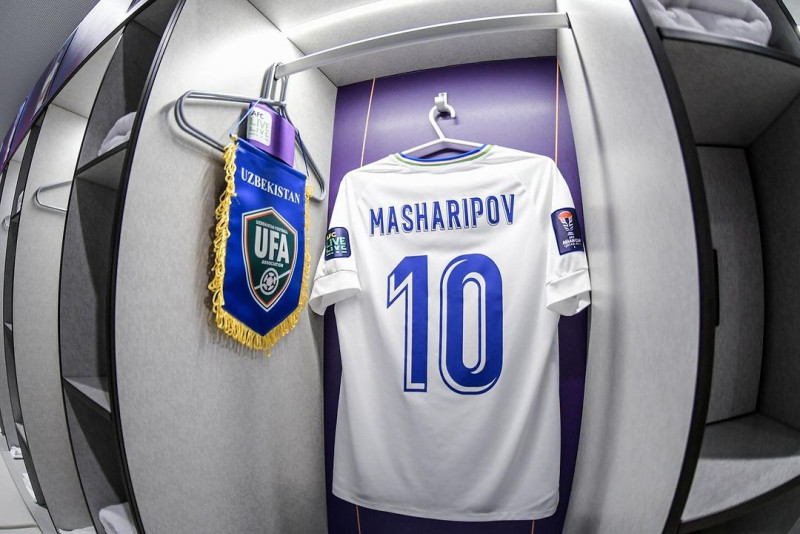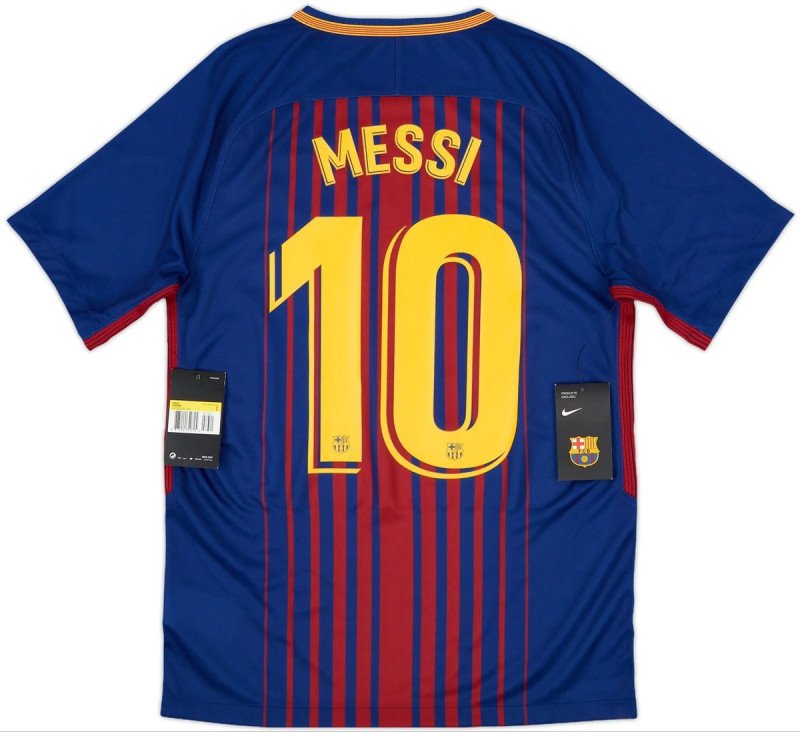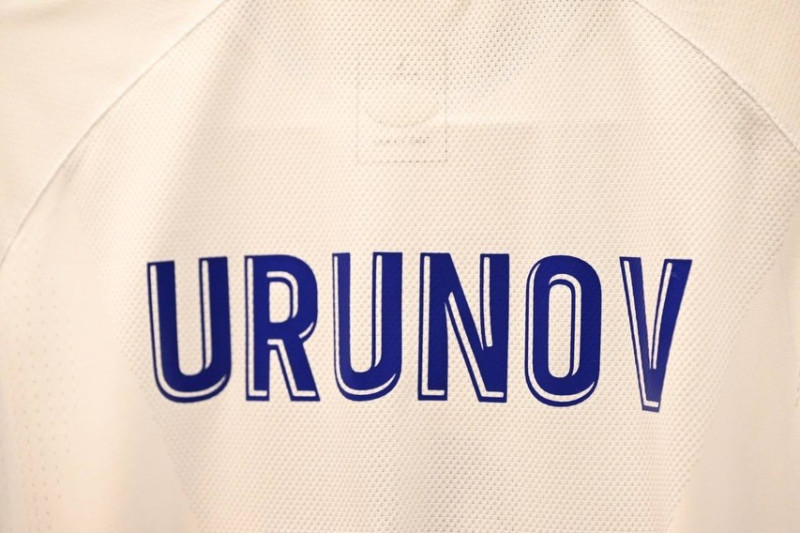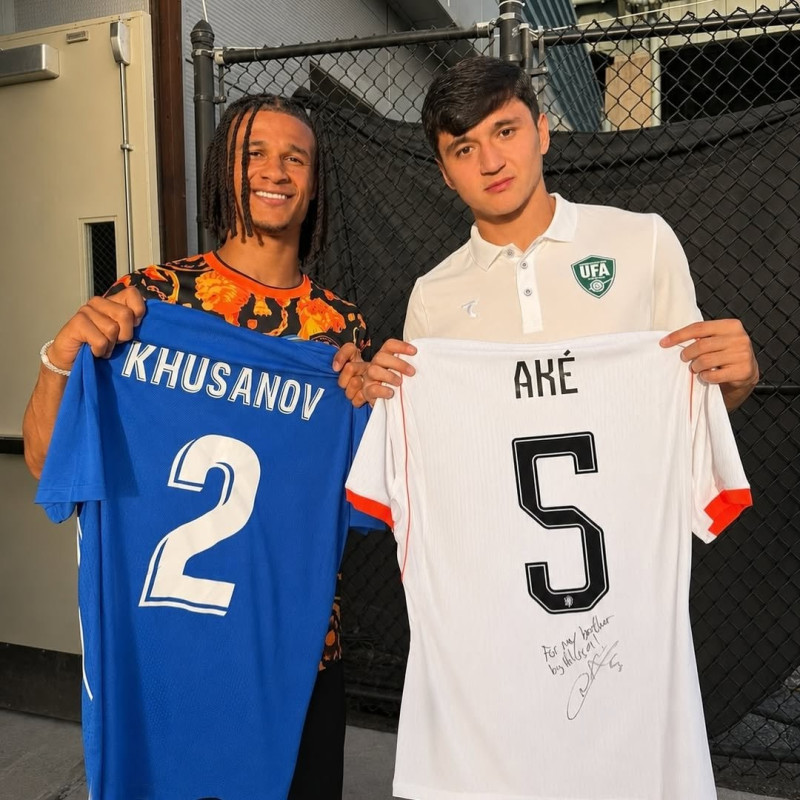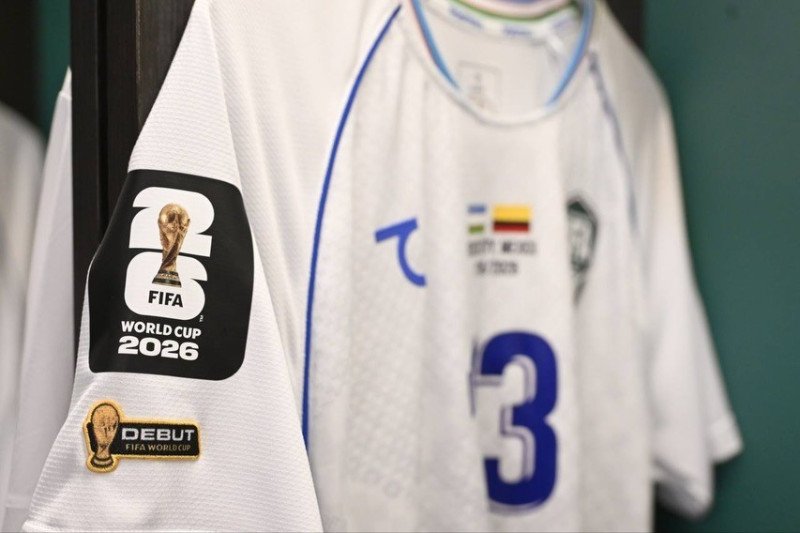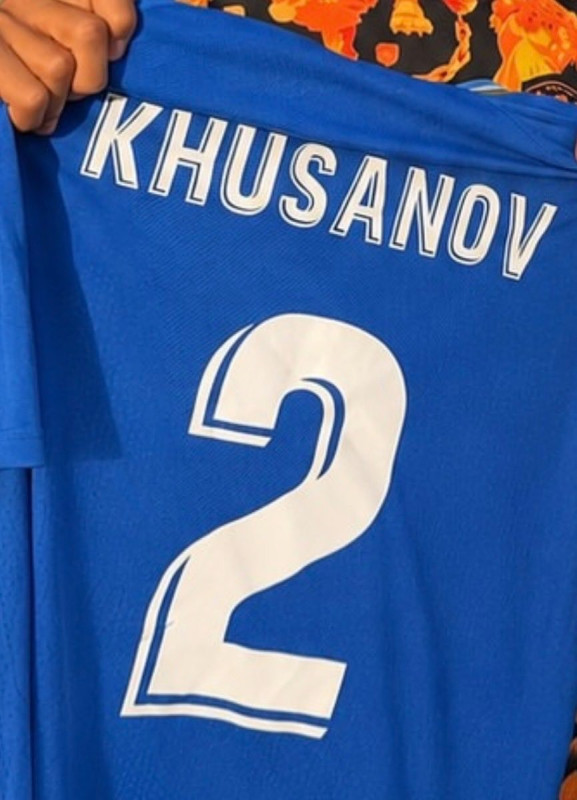
The Uzbekistan national team is making its debut at the 2026 FIFA World Cup, but their kit typography might look very familiar to football fans. For their 2026 World Cup jerseys, produced by the brand 7 Saber, Uzbekistan is using the official La Liga font from the 2017-18 season for their player numbers and names.
Interestingly, this is not the first time the Uzbekistan Football Association has opted for this specific typeface. The team previously utilized the exact same La Liga 2017-18 font on their kits when they were supplied by Jako. The continued use of an old league-wide font for a national team on the biggest global stage is a highly unusual kit quirk.
Uzbekistan is also not the only national team to recycle this design. The 2017-18 La Liga typography has been spotted on the kits of several other nations in recent years, including DR Congo, and at major tournaments such as the 2023 Asian Cup and the 2024 Africa Cup of Nations.